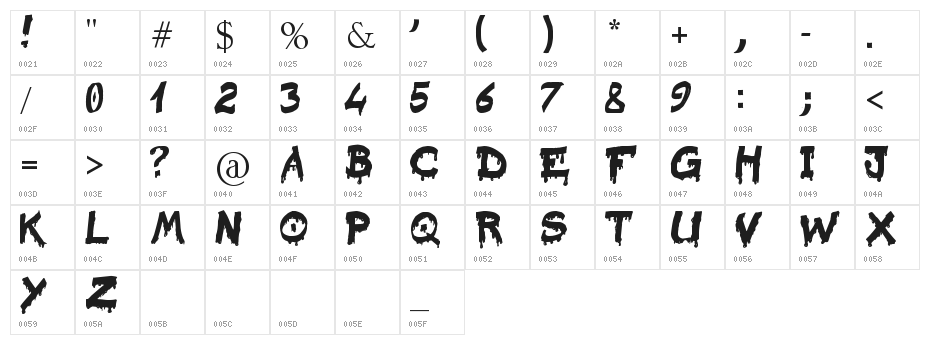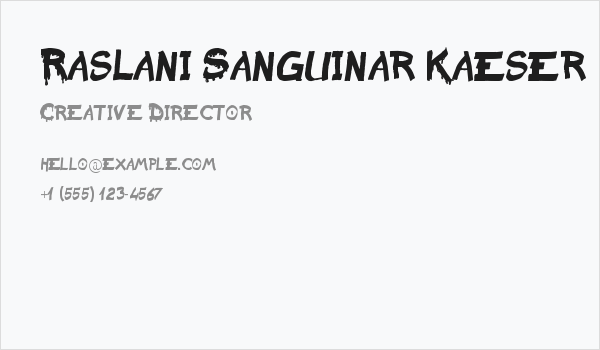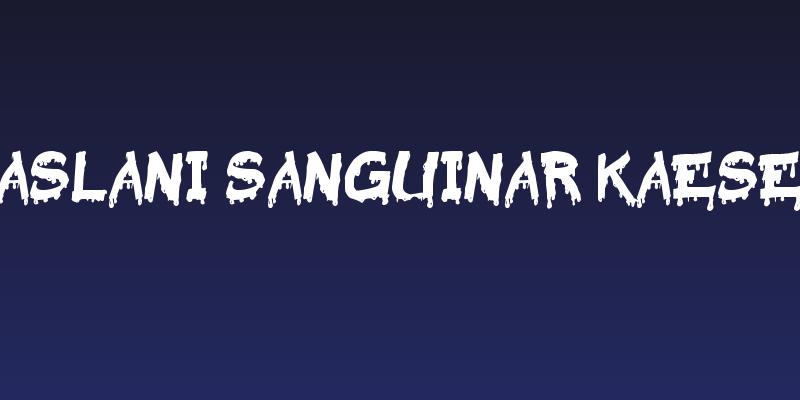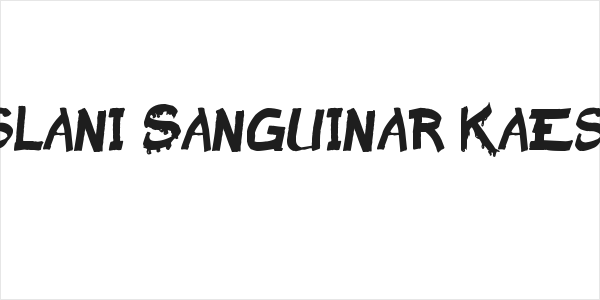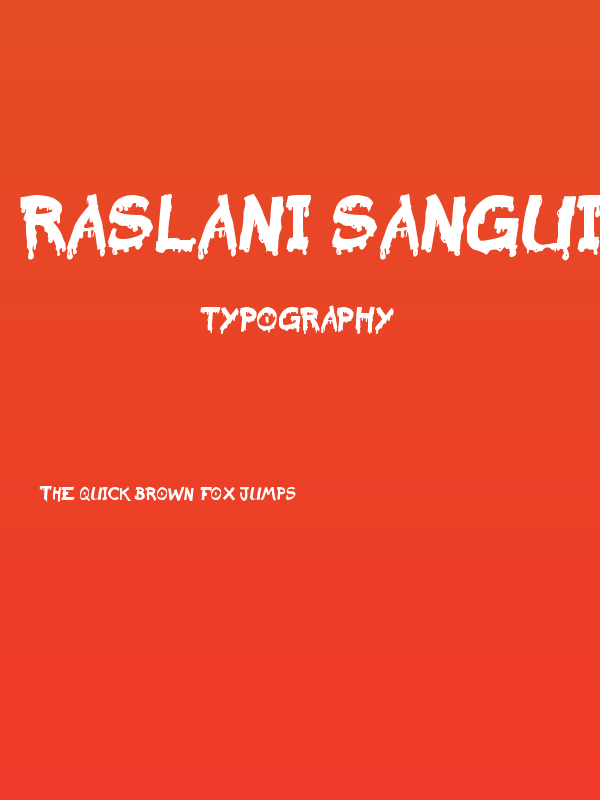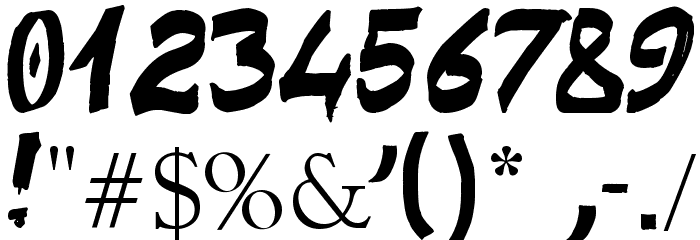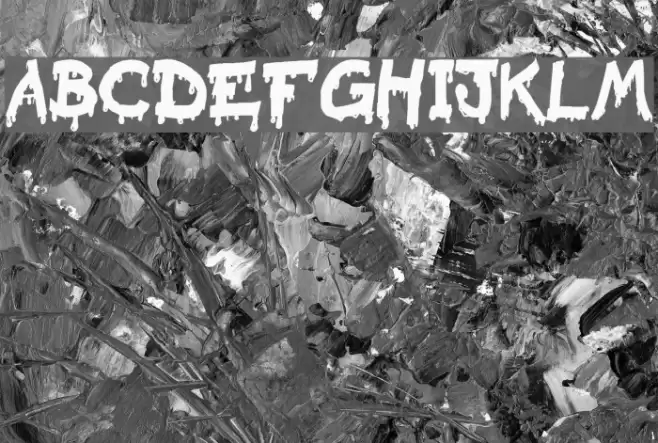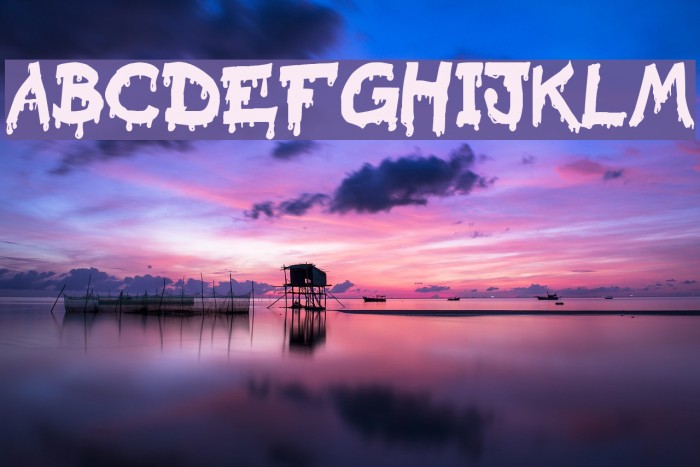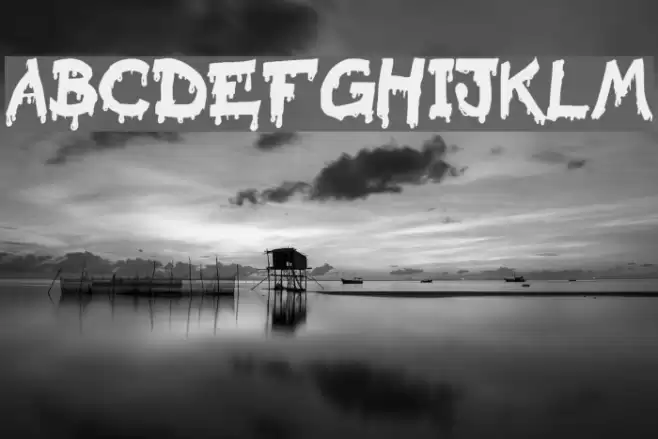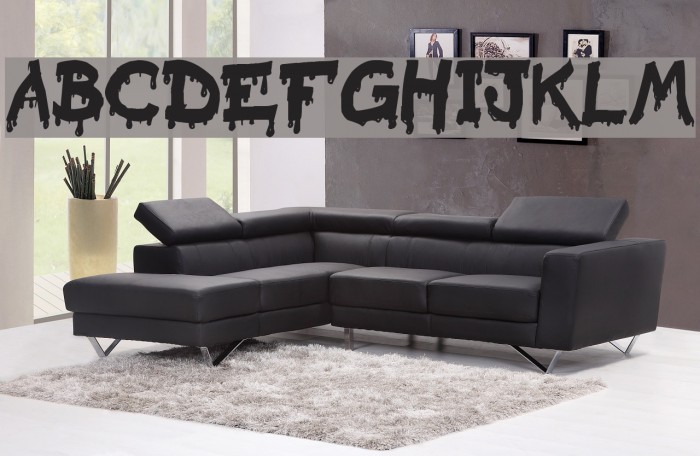
Raslani Sanguinar Kaeser Font
Raslani Sanguinar Kaeser Description
This font features a bold and dramatic style with a dripping effect that gives it a horror or Halloween-themed appearance. The uppercase letters are particularly striking, with uneven edges and a sense of movement that suggests liquid or melting. The lowercase letters maintain this theme, though they are slightly more restrained. The numbers and special characters follow the same design principles, ensuring a cohesive look across all glyphs. This font is perfect for creating eye-catching headlines or themed graphics where a sense of eerie or spooky atmosphere is desired.
| Proposed Projects | Ideal for Halloween posters, horror movie titles, themed party invitations, and spooky event branding. |